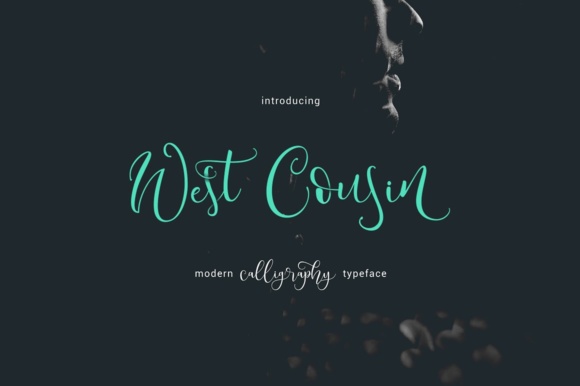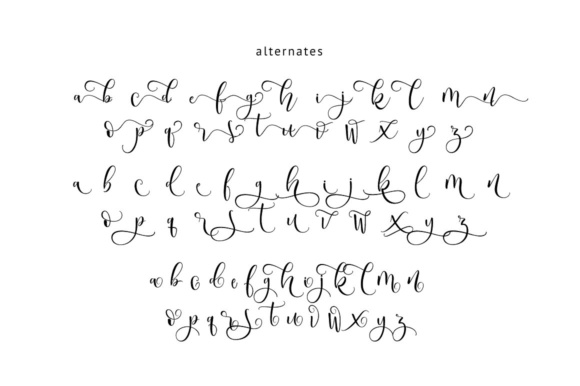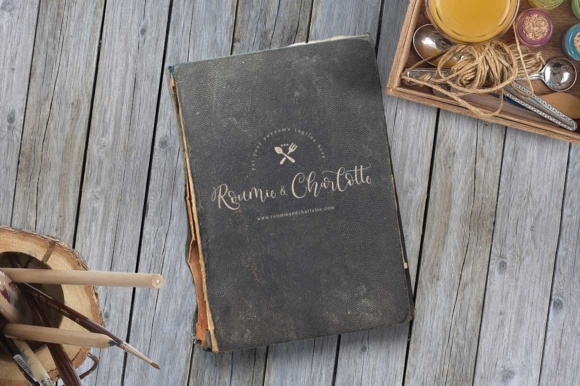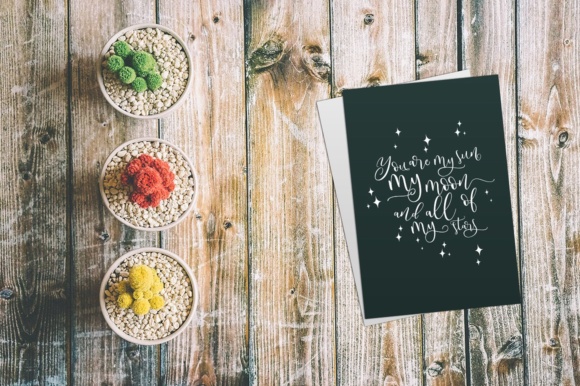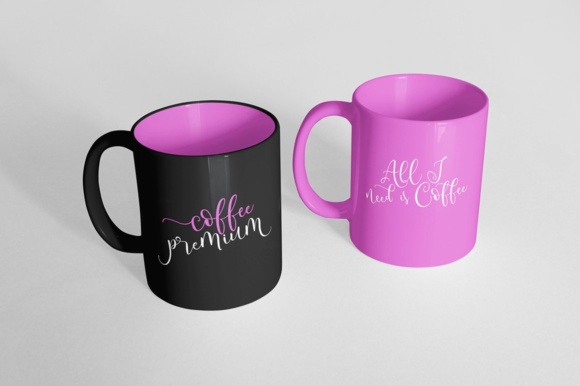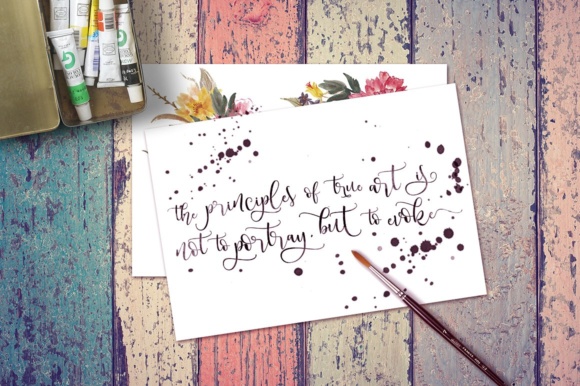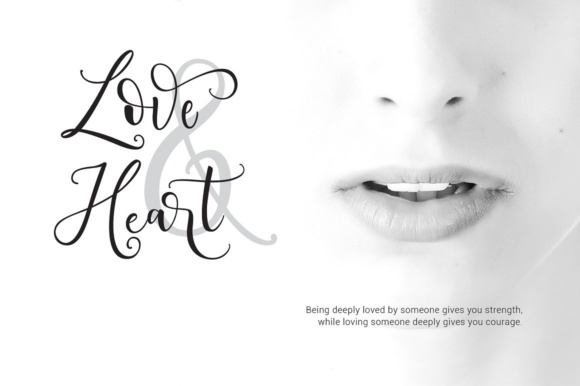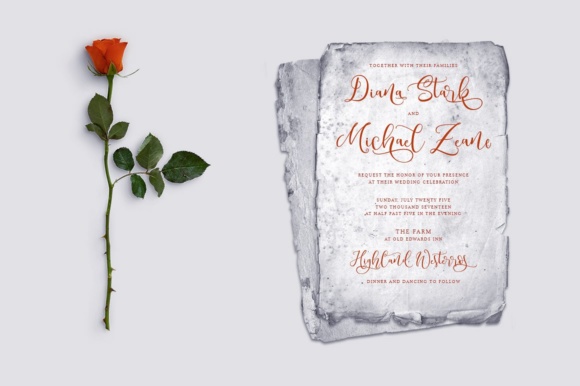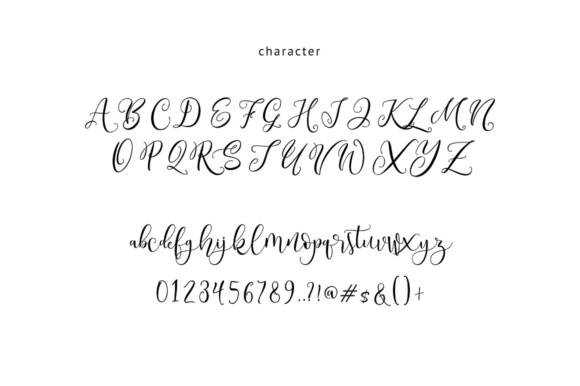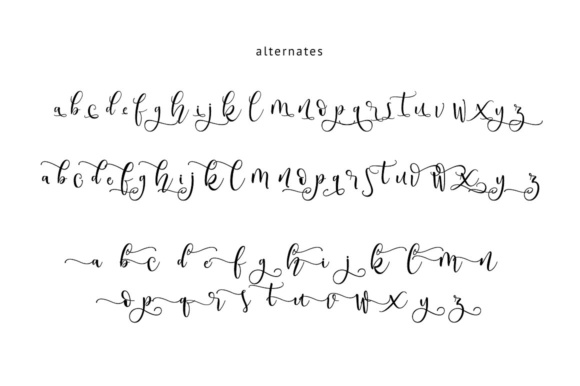
West Cousin Font
About West Cousin Font
The West Cousin is a modern calligraphy typeface. It has a feminine, elegant feel which is perfect for every design that want to look upscale and chic.